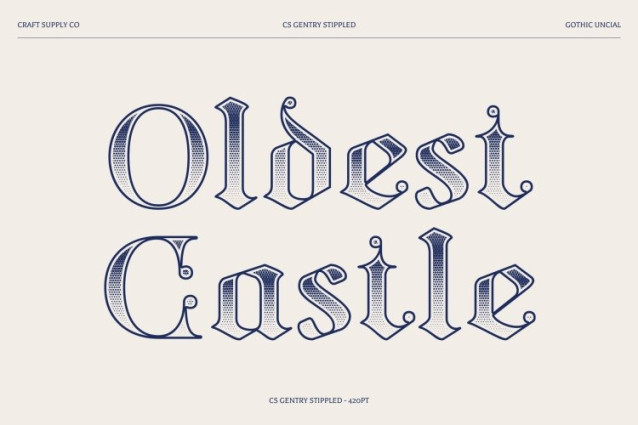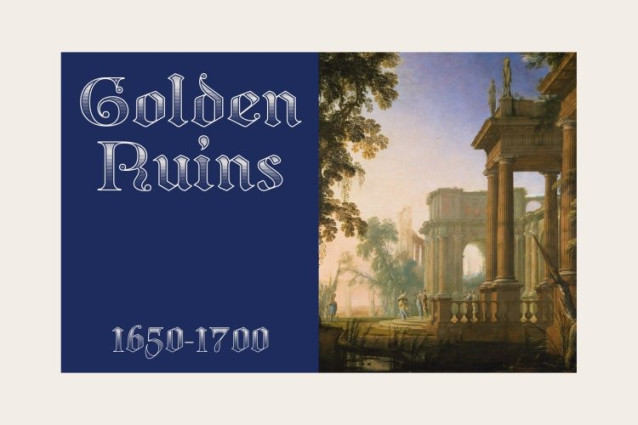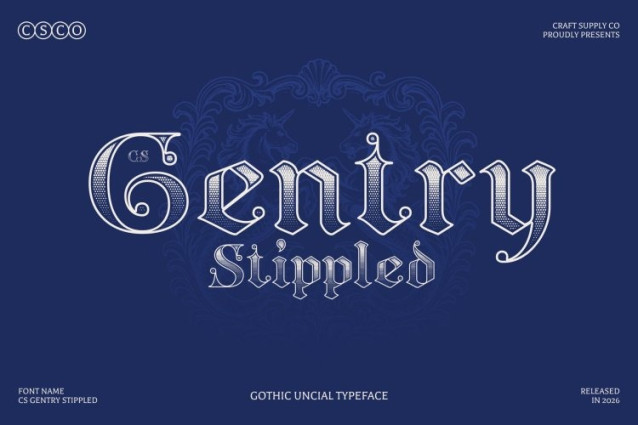
CS Gentry Stippled Font is a captivating Gothic Uncial display font that blends medieval design influences with the refined beauty of traditional calligraphy. Its letterforms combine graceful curves with sharp edges and varied stroke thickness, creating a balanced typographic style that feels both elegant and authoritative. The addition of a stippled texture introduces a subtle dotted surface, adding depth and a handcrafted character that enhances its historical aesthetic.
Inspired by Ancient Manuscripts
Drawing inspiration from sacred texts and medieval manuscripts, this font reflects the fluidity and artistry of traditional handwriting. The carefully shaped forms evoke the visual language of historic calligraphy, while the stippled detailing adds a slightly aged and tactile quality, reinforcing the font’s antique charm.
A Harmonious Blend of Strength and Elegance
The combination of rounded uncial forms and Gothic structural details creates a distinctive and visually rich typeface. This balance between softness and structure allows this font to convey both sophistication and historical authority, making it visually engaging while remaining readable.
Perfect for Historical and Cultural Themes
This is ideal for book covers, album artwork, invitations, editorial layouts, and branding projects that draw inspiration from history, mythology, or classical culture. Its elegant and textured style helps create a timeless atmosphere that enhances storytelling and thematic design.